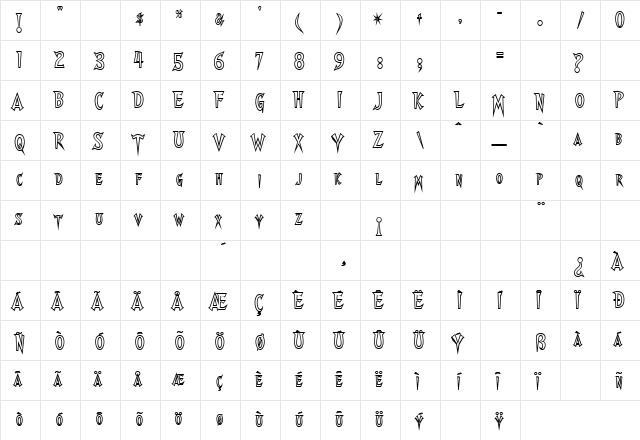
Walshes Outline Regular
Design Context for Walshes Outline Typeface
Walshes Outline is built around its visual character rather than neutral utility — its distinctive forms are designed to make an impression at display sizes.
Font Pairing: Pair with a clean neutral sans-serif for body copy to let Walshes Outline's character lead without overwhelming the composition.
Pro Tip: Treat Walshes Outline as the centrepiece of your typographic hierarchy. One strong heading set in a decorative face can carry an entire layout.